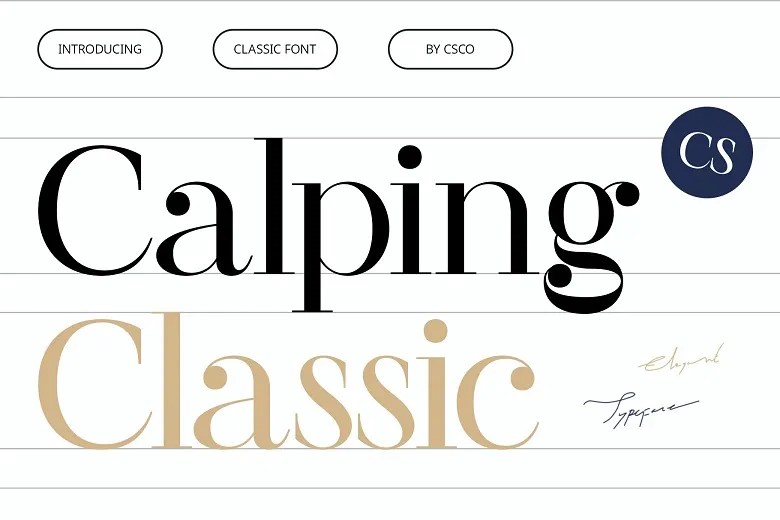
CS Calping Font
CS Calping is a distinguished serif font that artfully combines traditional design elements with contemporary style. Designed with a keen attention to detail, CS Calping stands out with its unique blend of heavy and thin lines, alongside acute and graceful serifs. This high-contrast font offers a polished and sophisticated appearance, making it the epitome of elegance and refinement.
Design and Aesthetics
• Traditional Meets Contemporary: CS Calping bridges the gap between classic serif characteristics and modern design sensibilities. Its design features bold, high-contrast strokes paired with delicate, graceful serifs that lend a regal and refined appearance to any text.
• High Contrast and Intricate Detailing: The font’s design emphasizes sharp contrasts between thick and thin lines, contributing to a structured and highly polished look. The intricate detailing of the serifs adds an extra layer of sophistication, making each letterform stand out with a touch of grandeur.
• Versatile and Elegant: Whether used for print or digital projects, CS Calping maintains its elegant and refined nature. The font’s classic design ensures it complements a wide range of styles and themes while adding a touch of luxury.
Perfect For Various Applications
• Wedding Invitations: CS Calping’s opulent design makes it an ideal choice for wedding invitations, where its formal and sophisticated appearance enhances the overall elegance of the event.
• Fashion Magazines: The font’s luxurious and polished look makes it perfect for high-end fashion magazines. It adds a sense of exclusivity and class to fashion spreads and editorial design, elevating the visual appeal of the publication.
• Brand Logos: CS Calping is an excellent option for creating high-end brand logos. Its refined and formal design conveys a sense of prestige and sophistication, making it suitable for luxury brands and high-profile businesses.
Why Choose CS Calping?
CS Calping is not just a font; it’s a statement of elegance and refinement. Its carefully crafted design ensures that every project it graces will carry an air of sophistication and class. Whether you’re working on wedding stationery, fashion editorial, or premium branding, CS Calping offers a timeless and versatile solution that adds a touch of luxury to your designs.